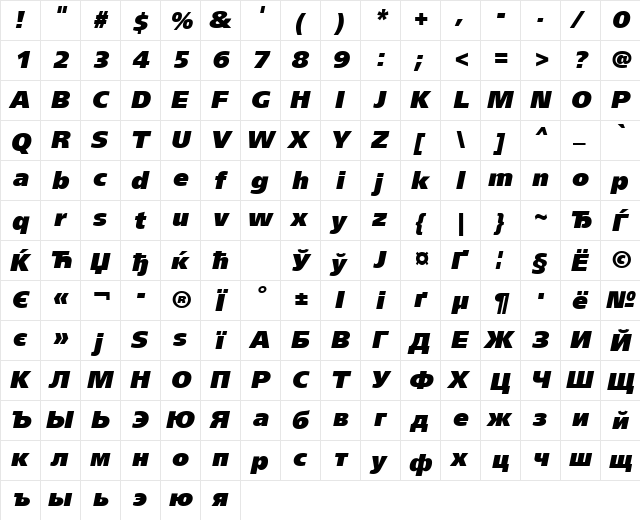
font182 Italic
Design Context for font182 Typeface
font182 is a composed and adaptable typeface that performs quietly and consistently across a wide range of design contexts. The dynamic lean of this cut emphasises speed and emphasis in any layout.
Pro Tip: Try font182 for annotation and caption copy alongside an upright companion — the contrast in angle creates a dynamic but ordered typographic system.